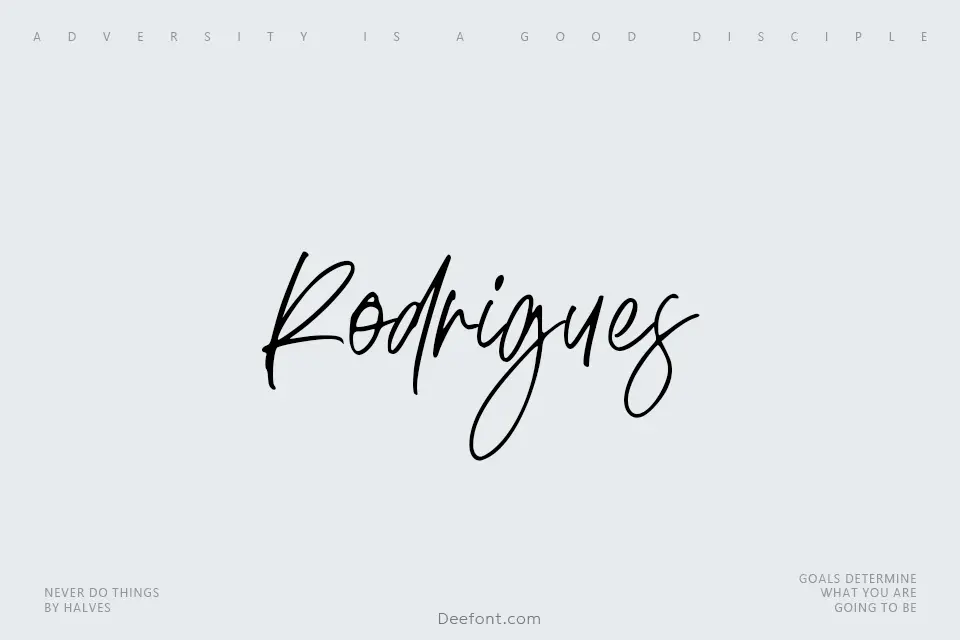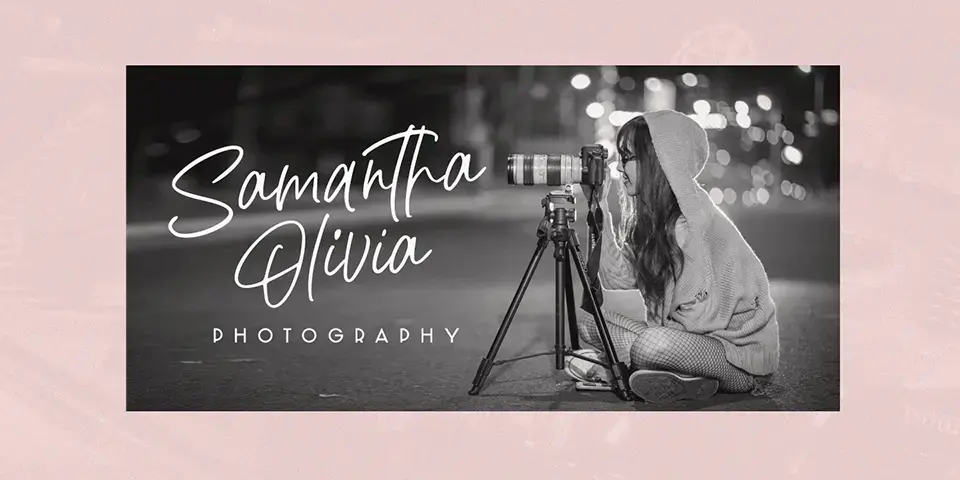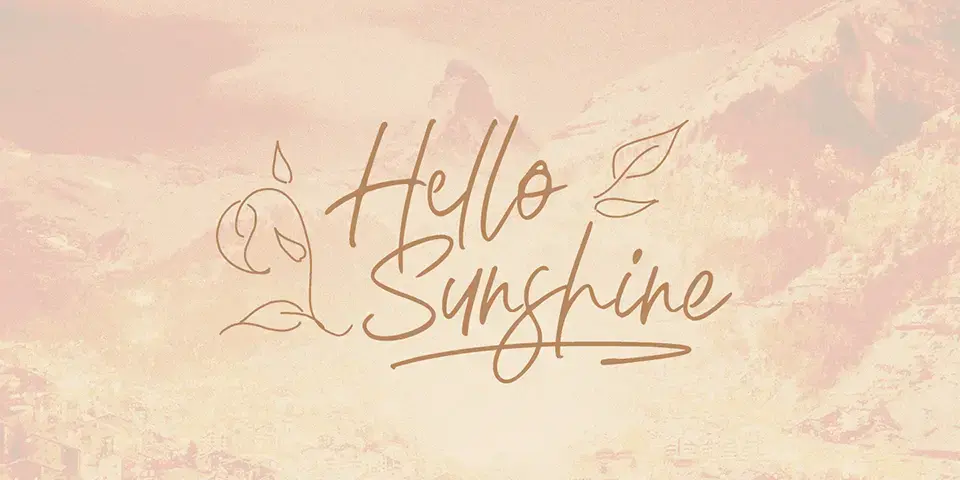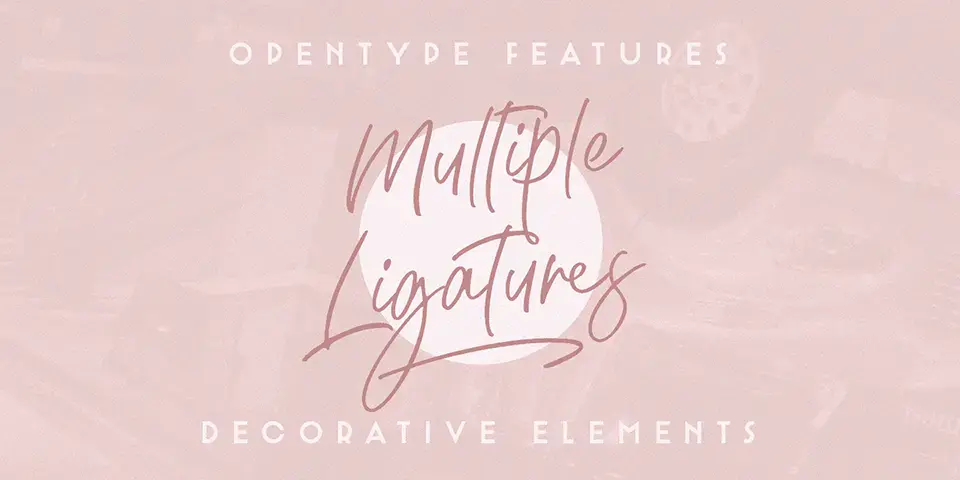
Rodrigues Font
Rodrigues Font is a fluid and elegant script typeface designed by Måns Grebäck. With its smooth monoline strokes and vintage signage aesthetic, it captures a retro vibe perfect for logos, packaging, and headlines. The font features decorative swashes accessible via brackets, adding a custom feel to any design. It brings a casual yet professional touch to modern branding projects.